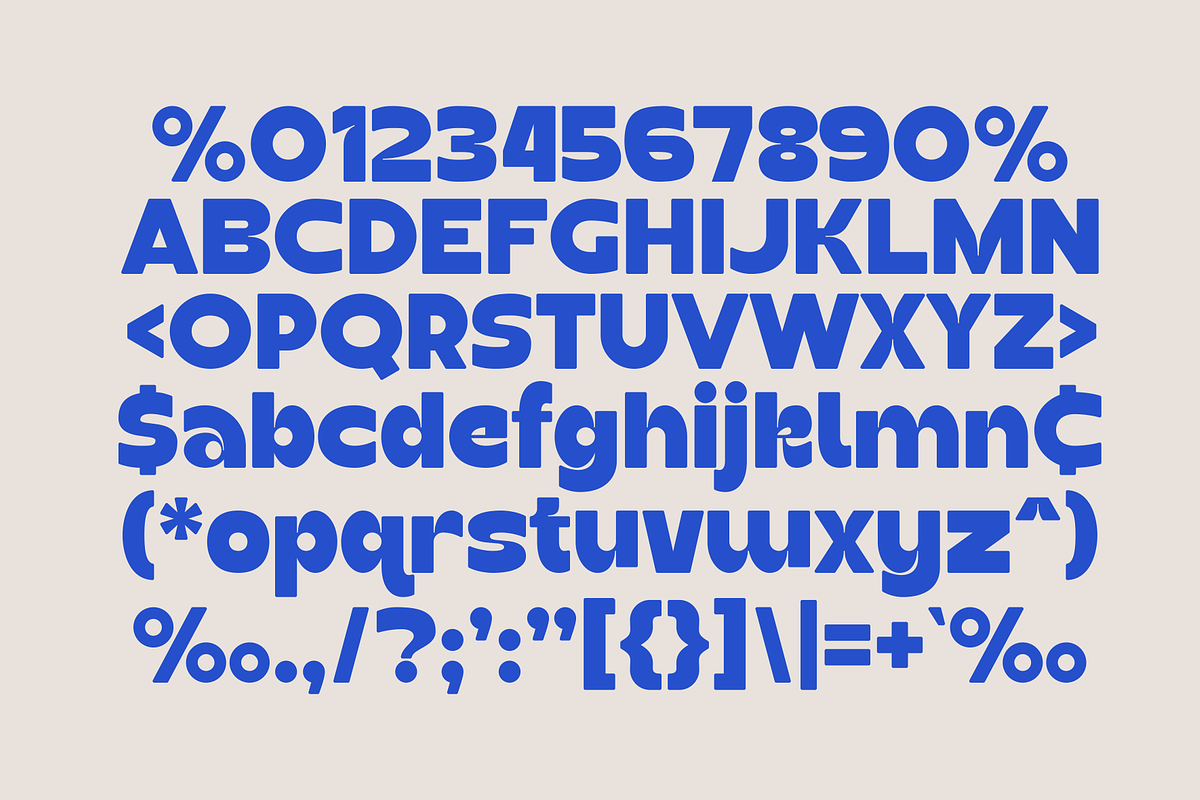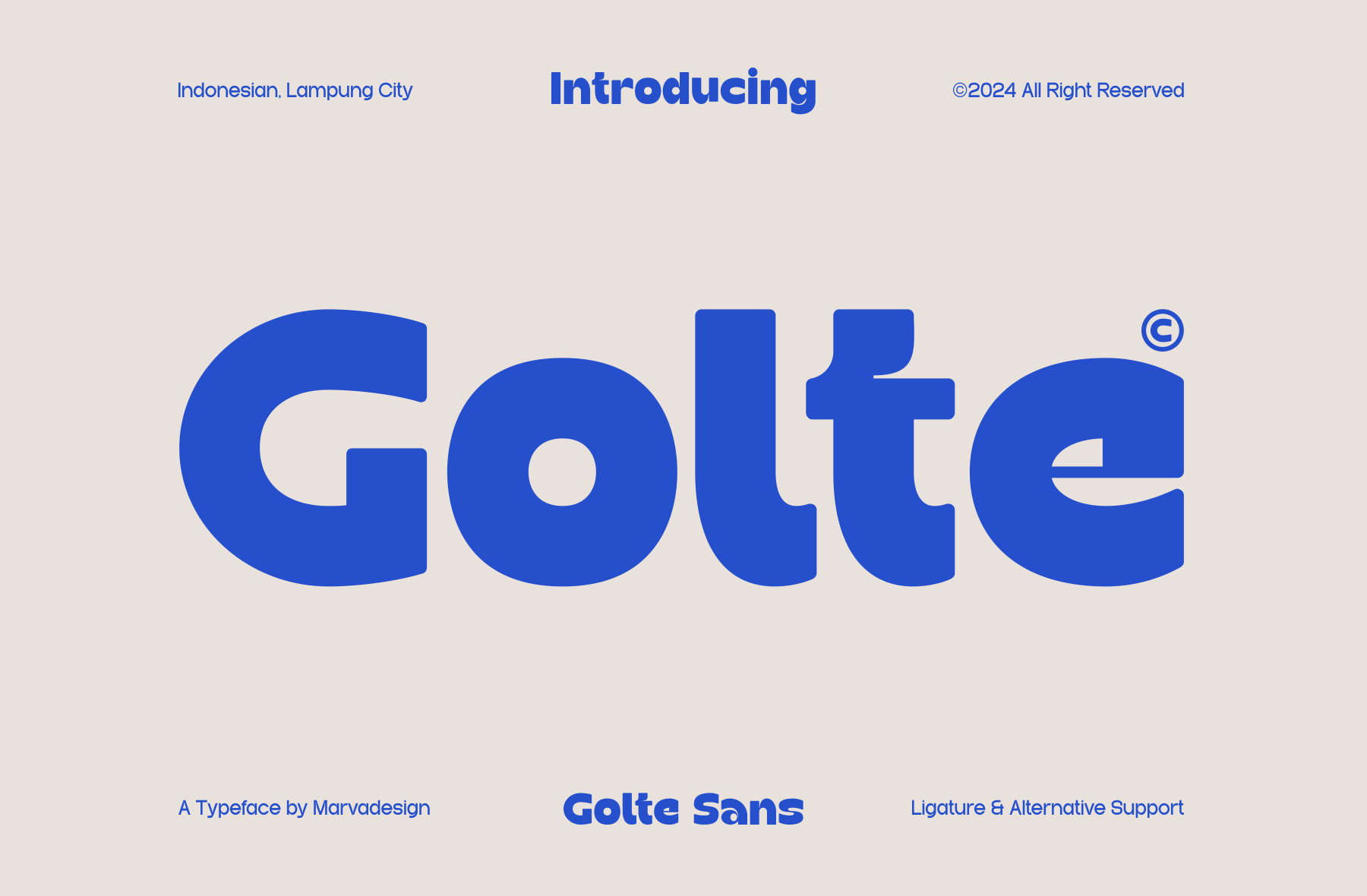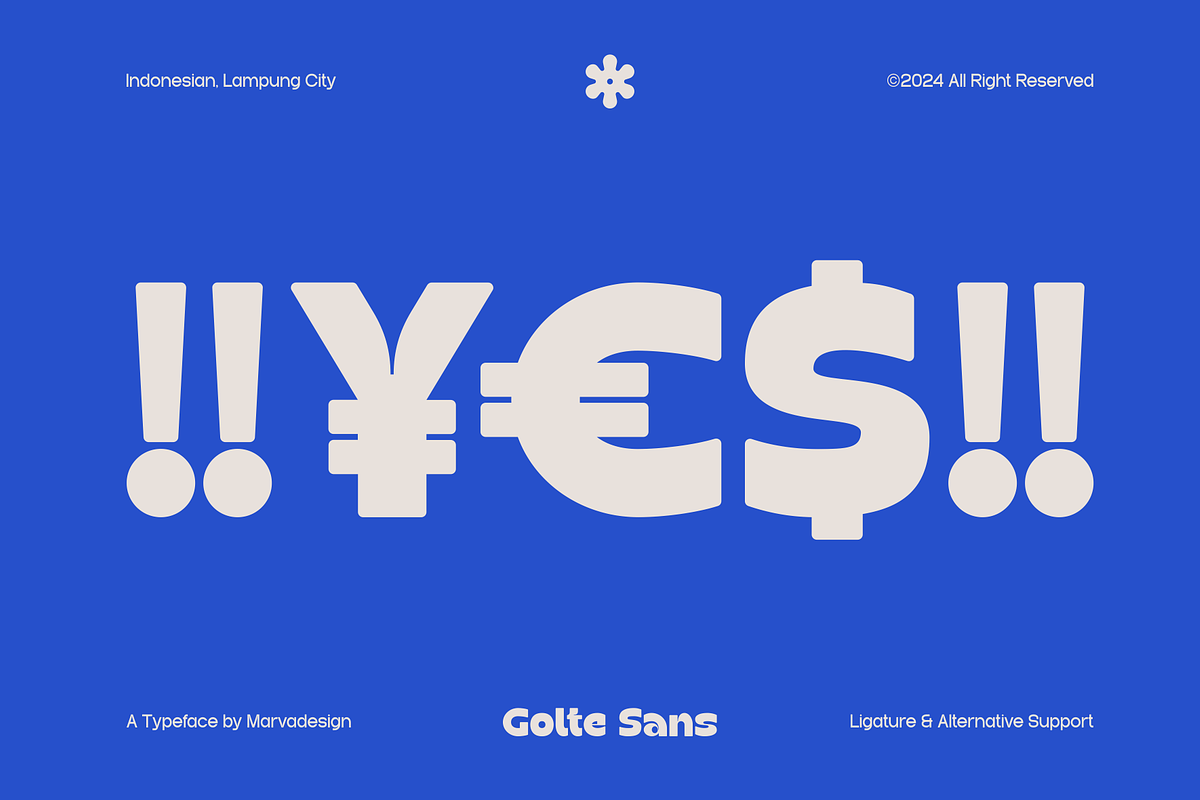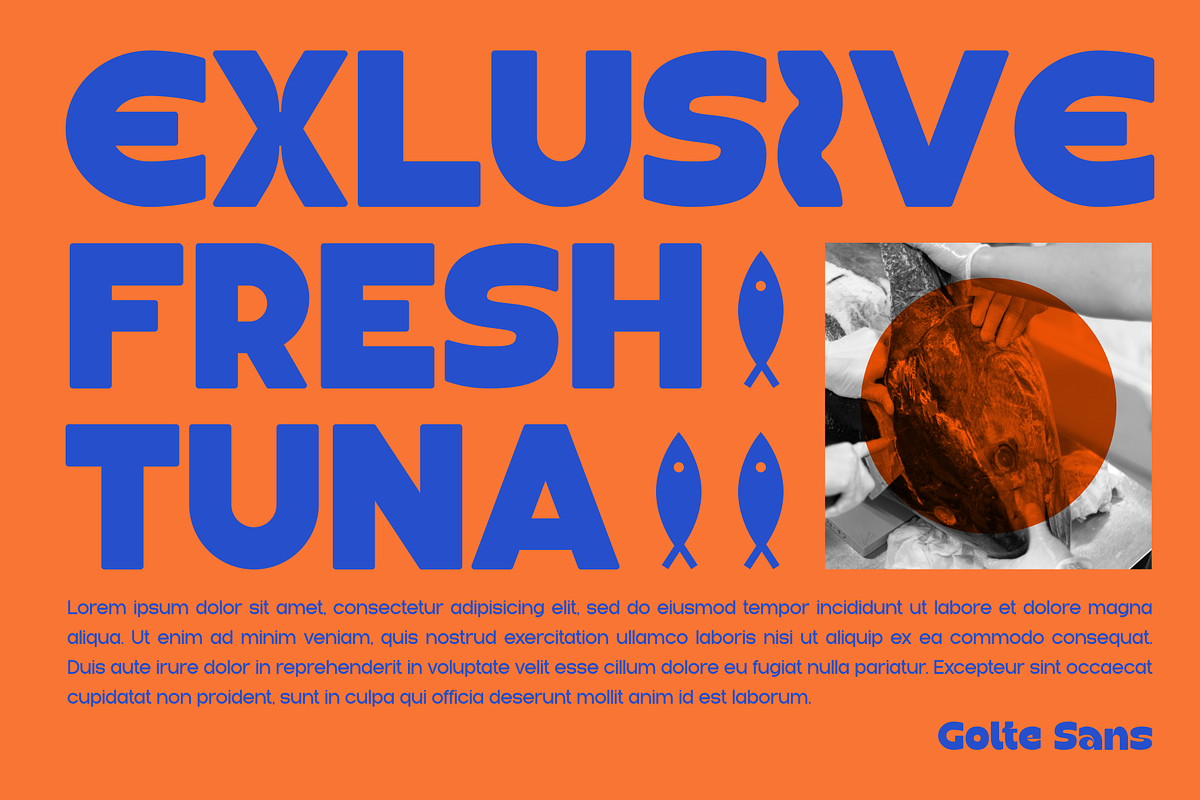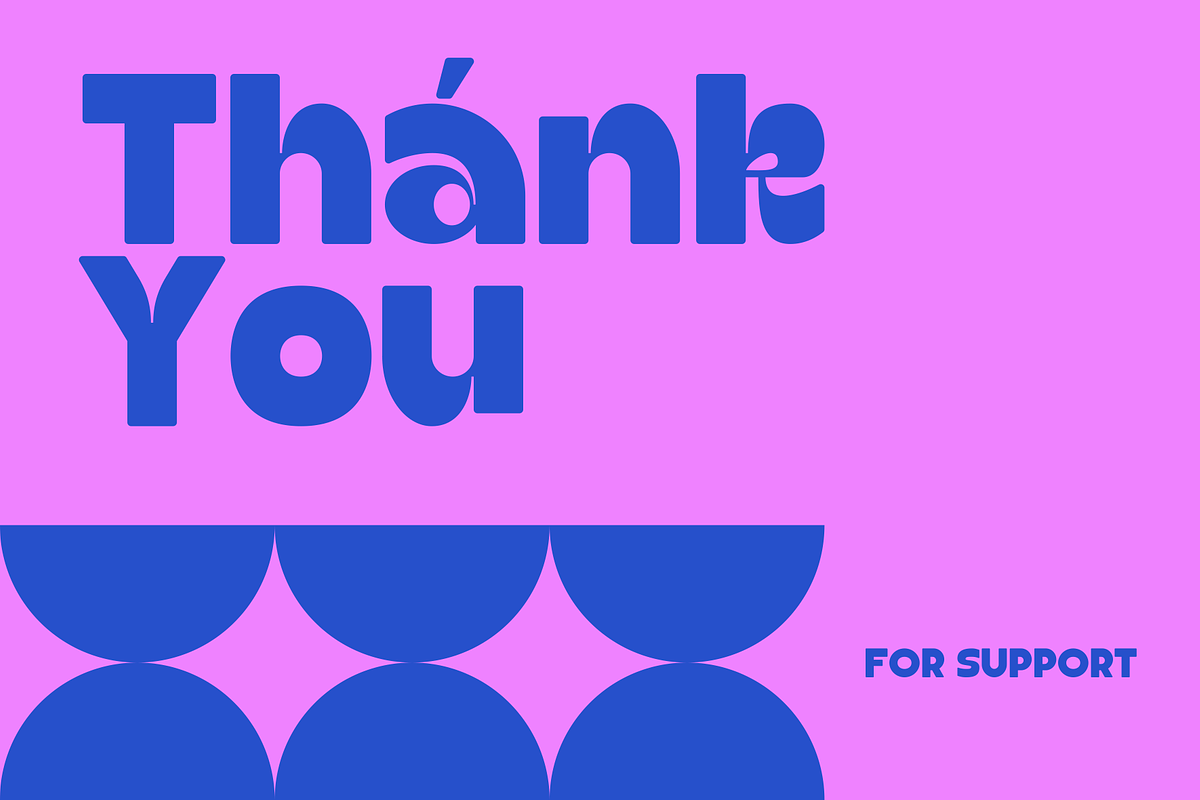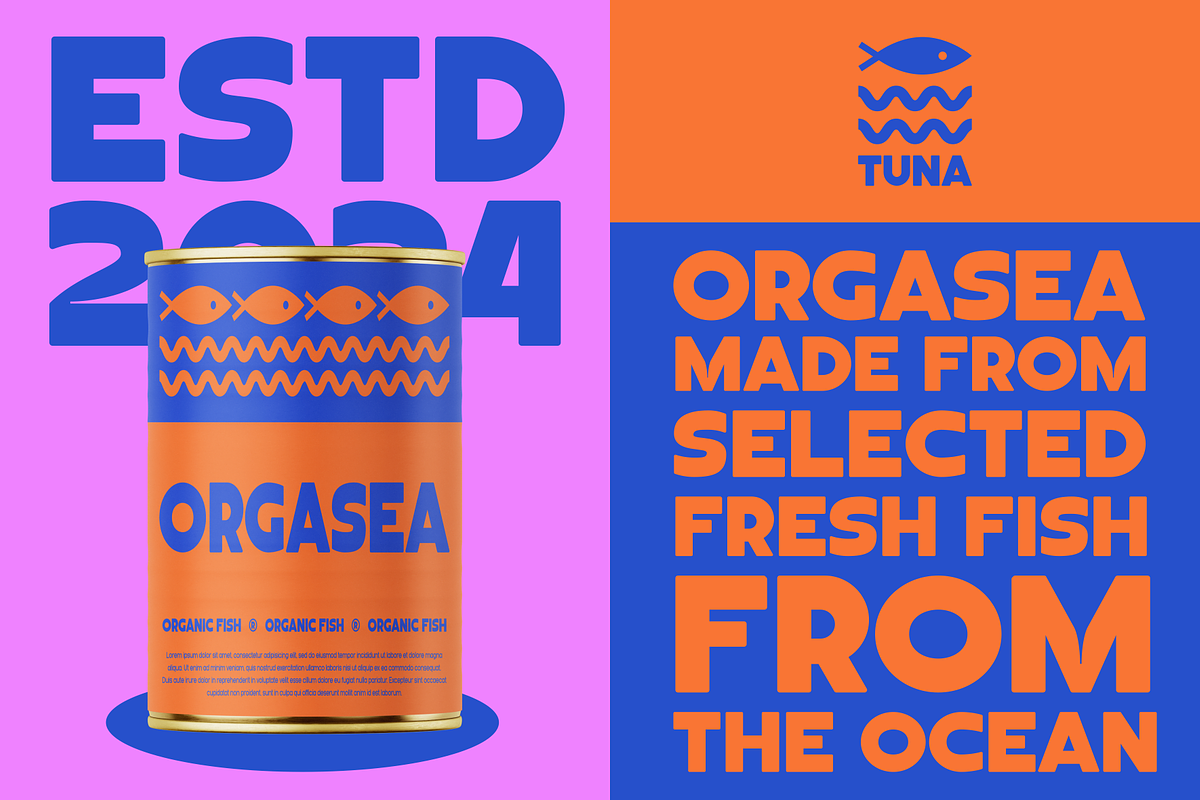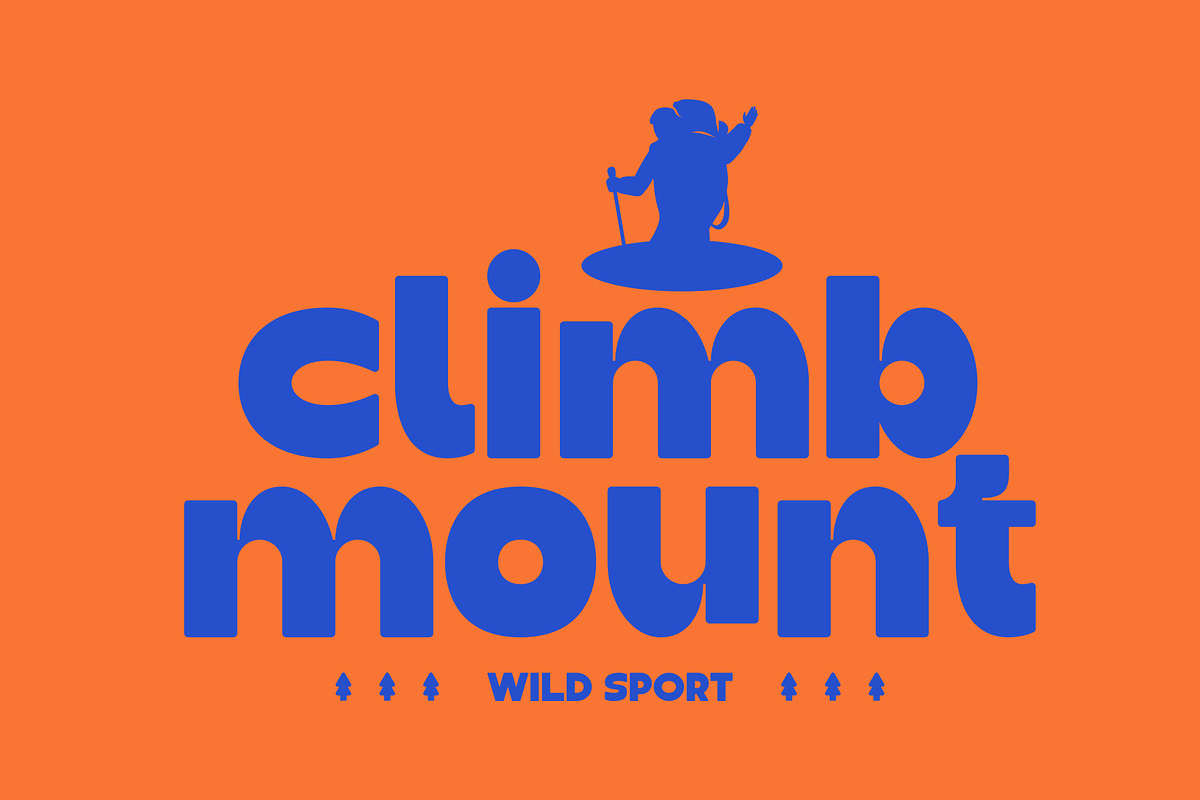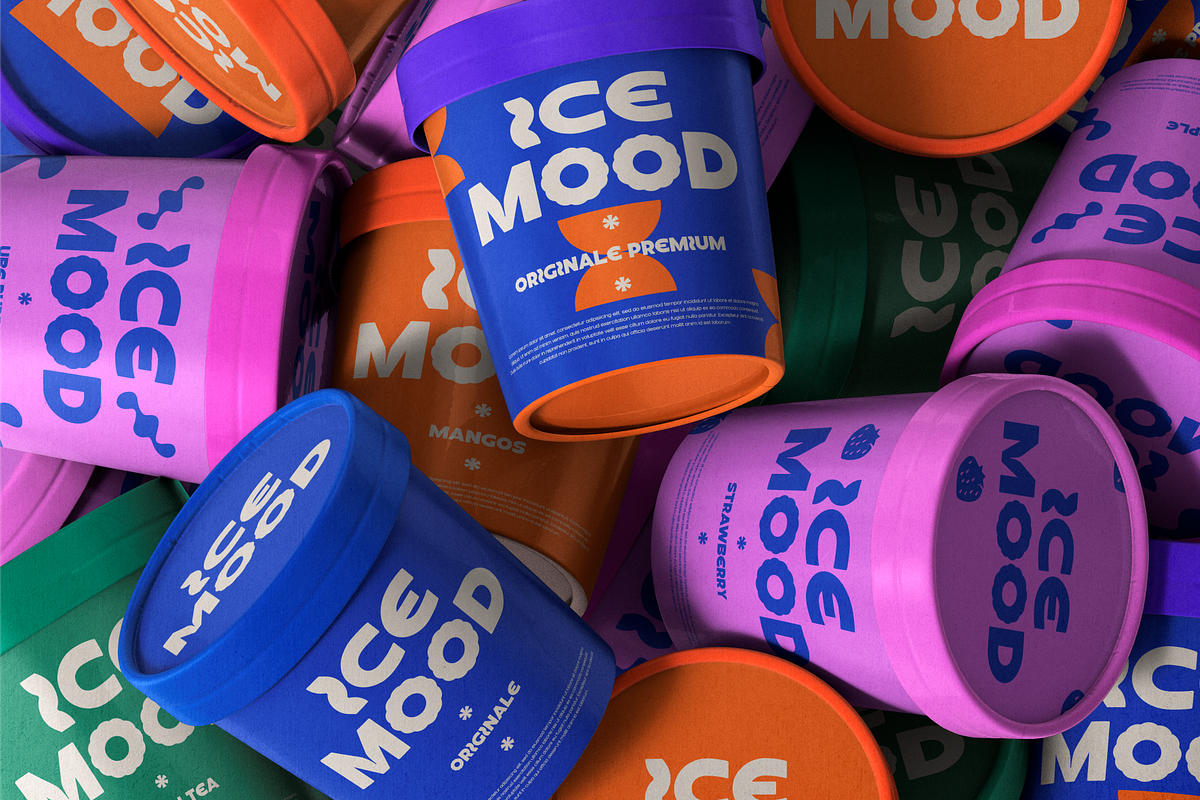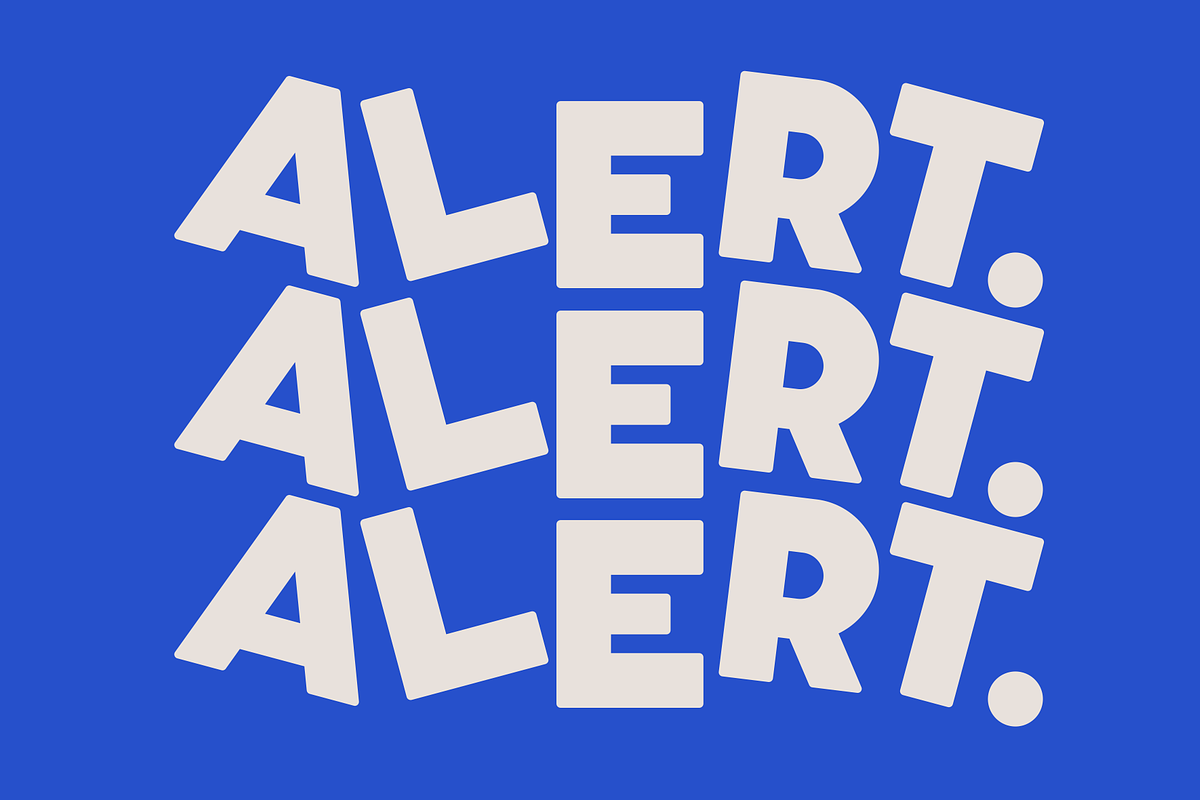
Golte Font
Introducing Golte is a Modern Sans Serif font that stands out with its unique and distinctive design, making it instantly recognizable. Its bold weight and clean lines make it a versatile choice for a variety of design applications, including headlines, branding, packaging, and more. Golte combines modern aesthetics with a hint of character, ensuring your message is conveyed with both clarity and style. Its balance of thickness and elegance adds a contemporary edge to any project. Perfect for grabbing attention and leaving a lasting impression.